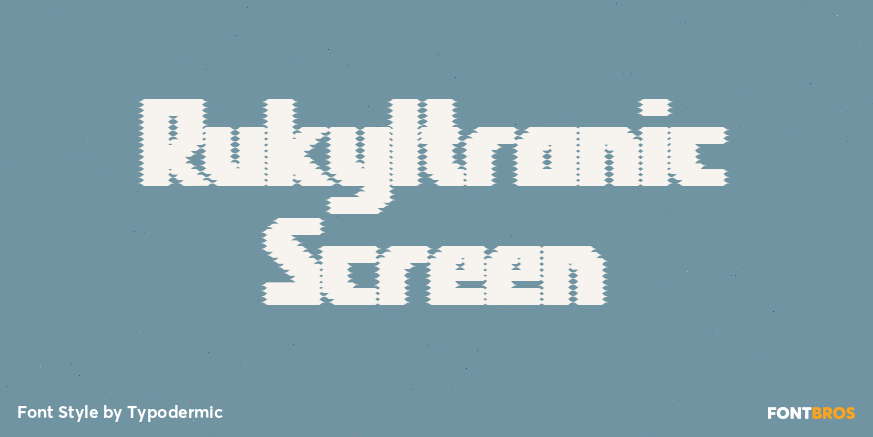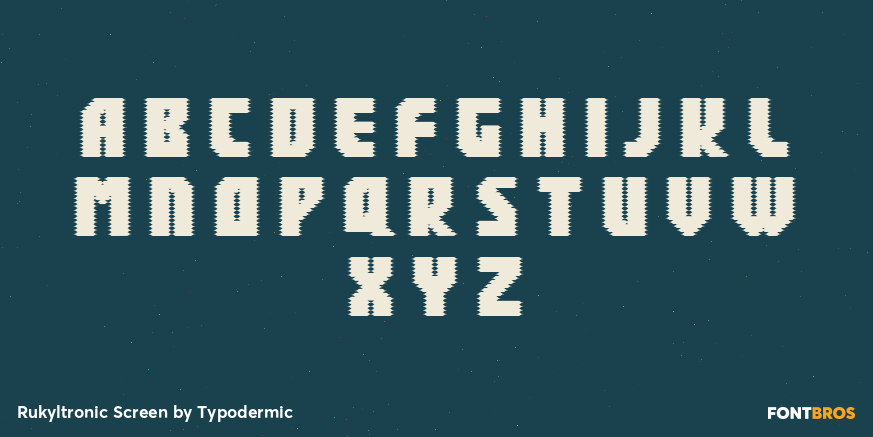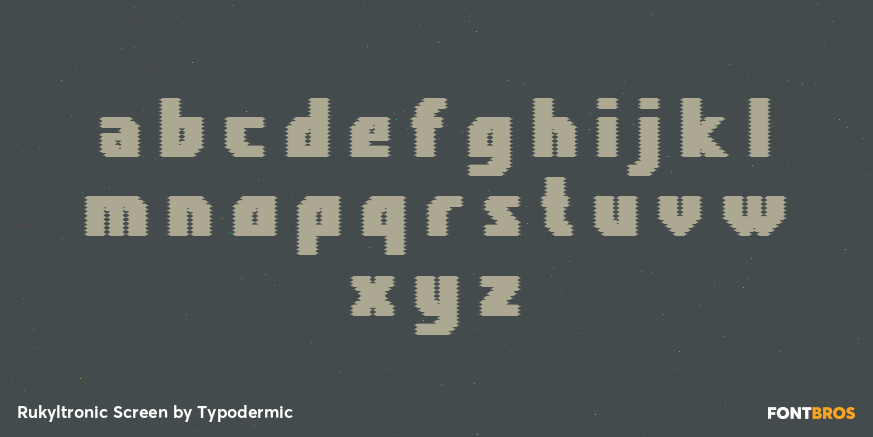
Rukyltronic Screen
Buy NowRukyltronic Screen compresses the family’s forms into stacked horizontal bands with serrated edges and small diamond-shaped interruptions. The strokes become dark, ribbed masses rather than isolated square pixels, suggesting scan lines, signal distortion, woven display material, or a low-resolution image pulled sideways. It is far denser and more aggressive than the orderly Grid, Lattice, Mesh, and Network styles.
Use Rukyltronic Screen for broadcast transitions, glitch-driven game titles, electronic-music covers, scoreboard takeovers, screen-printed apparel, and large event graphics that need controlled distortion. Keep it to short wording at generous sizes, where the ribbing and internal notches can remain legible. Regular or Grid can carry scores and secondary headings when Screen’s heavy surface would overpower the rest of the layout.